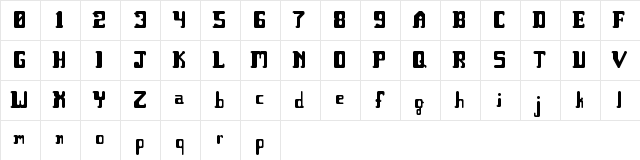
Elvish Presley Regular
| Designer | Vanatas |
Design Context for Elvish Presley Typeface
Elvish Presley is a composed and adaptable typeface that performs quietly and consistently across a wide range of design contexts.